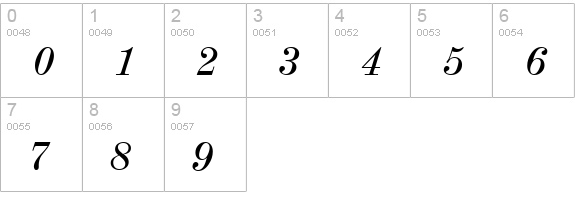
Magazine-Italic is a distinctive, italic variant in the Magazine typeface family \xE2\x80\x94 well suited to design and typography projects.
Magazine-Italic font is a sophisticated and elegant typeface that exudes style and professionalism. Its sleek and stylish italicized design adds a touch of flair to any project, making it perfect for use in editorial layouts, fashion magazines, and luxury branding. With its clean lines and modern aesthetic, Magazine-Italic font is sure to make a statement and elevate your design to the next level. The best part? Magazine-Italic font is available for free download at FontsMarket.com, allowing you to access this premium typeface at no cost. Whether you're a designer looking to enhance your projects or a creative professional seeking a versatile font for your work, Magazine-Italic font is the perfect choice. Download it today and add a touch of sophistication to your designs.